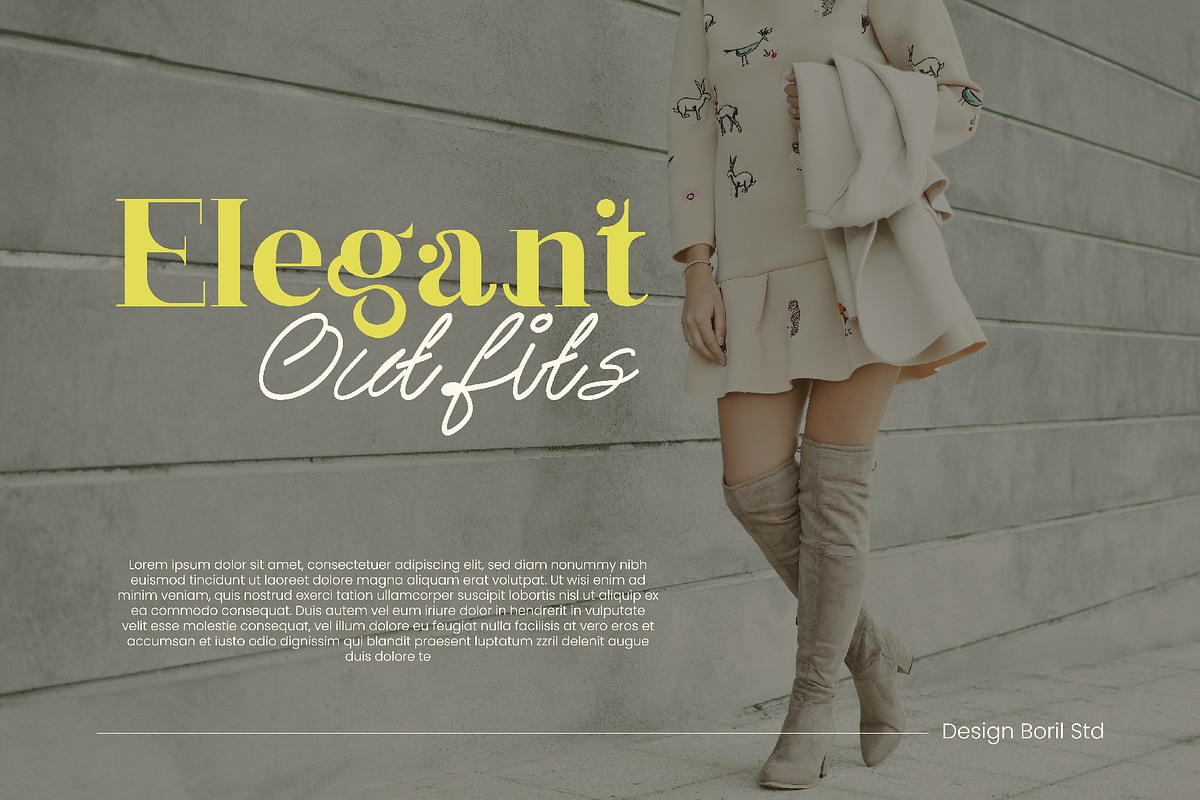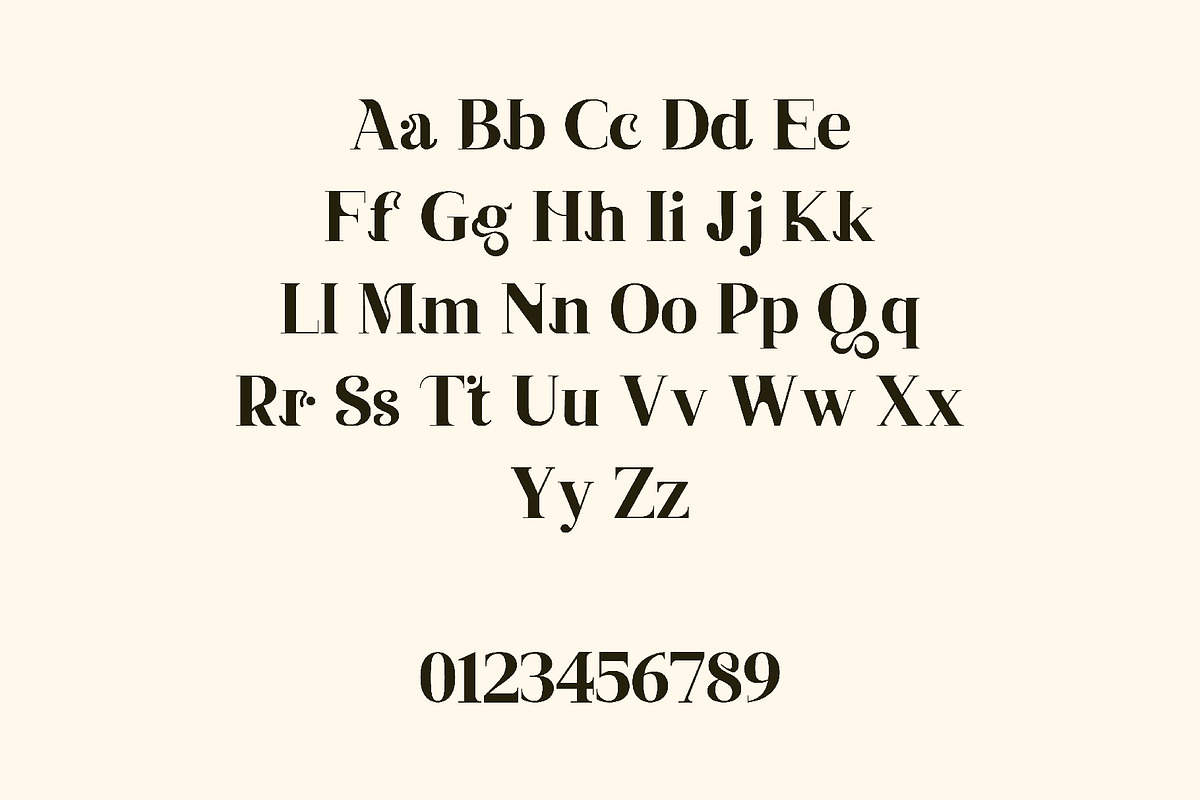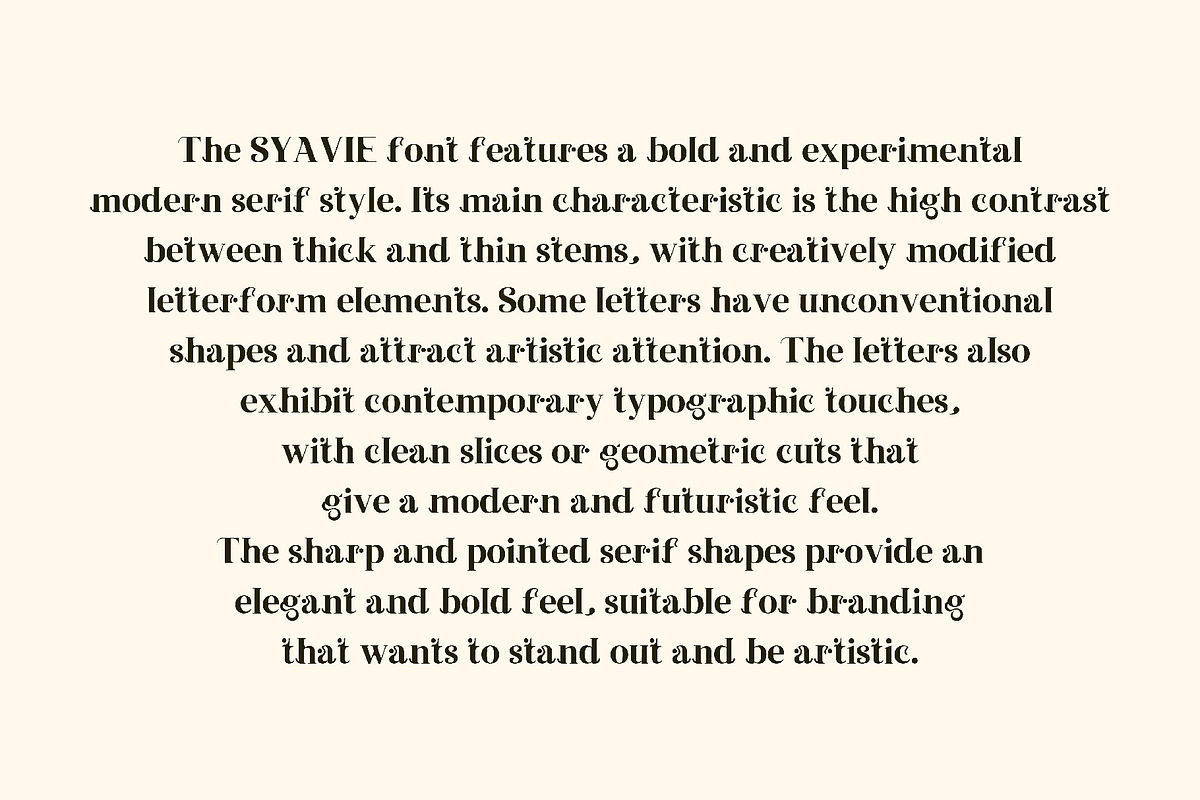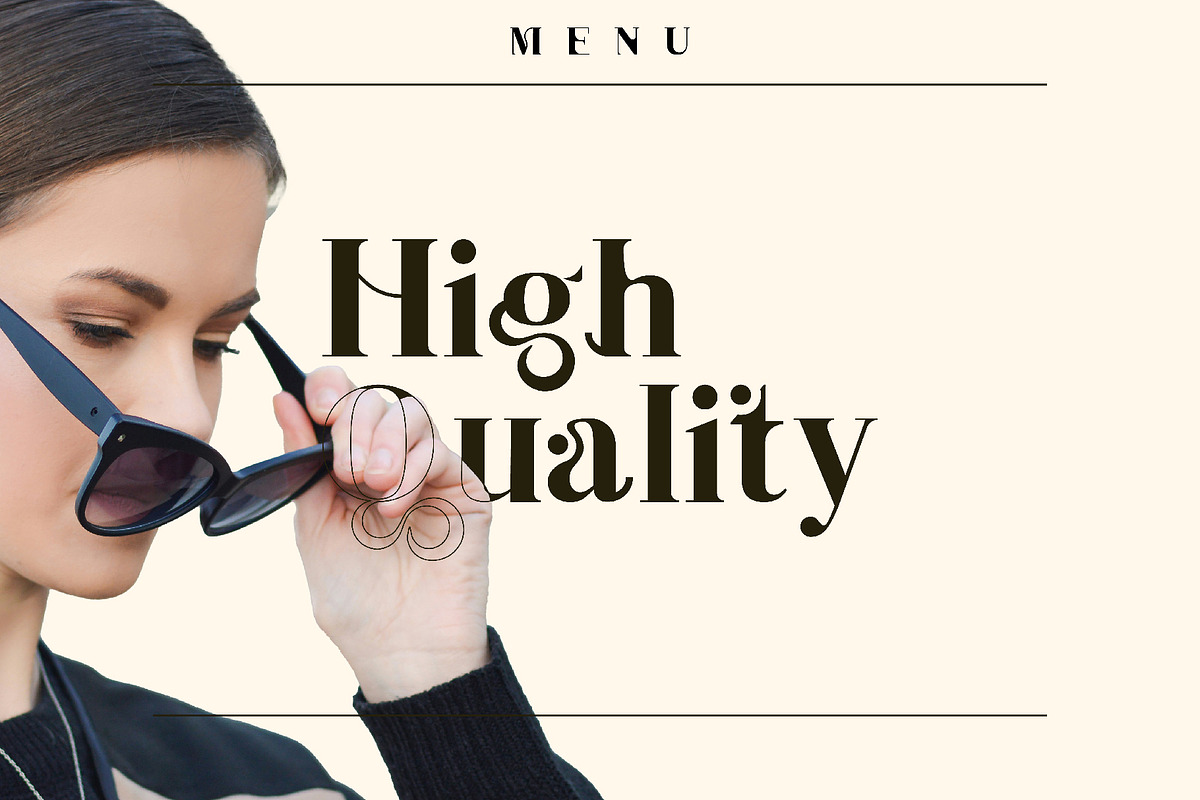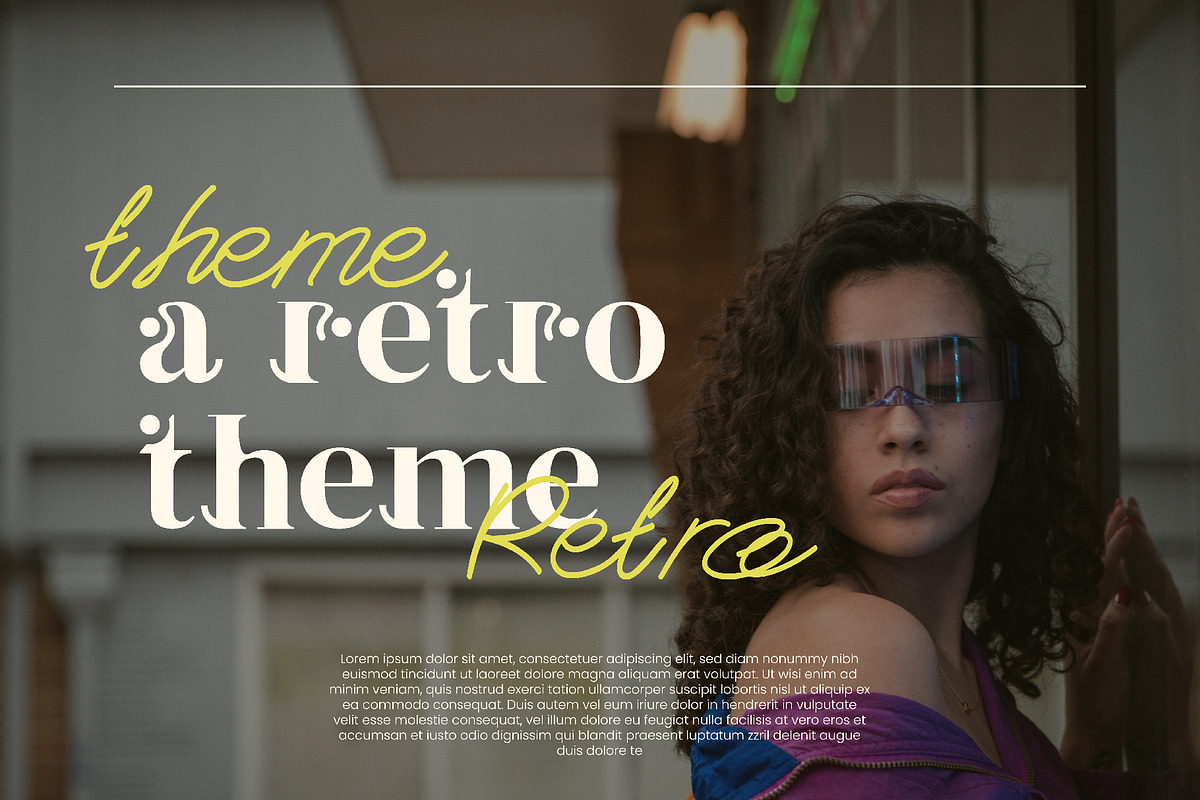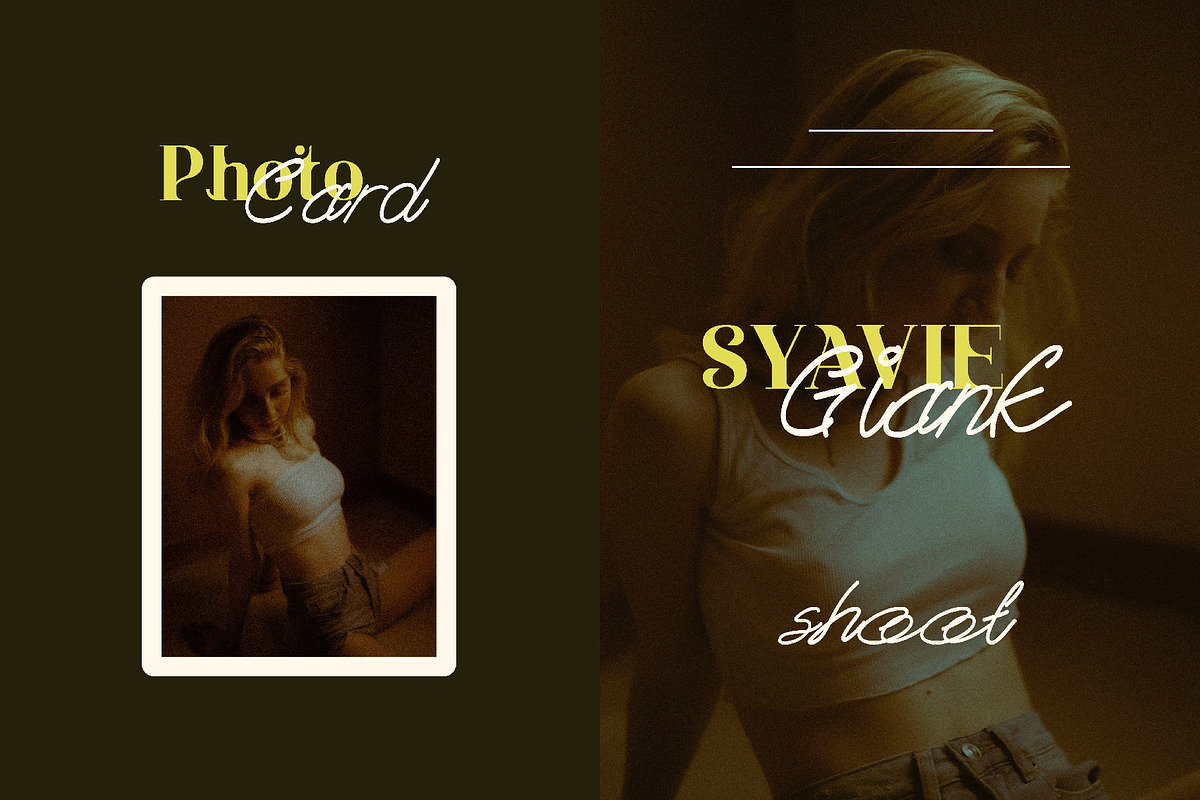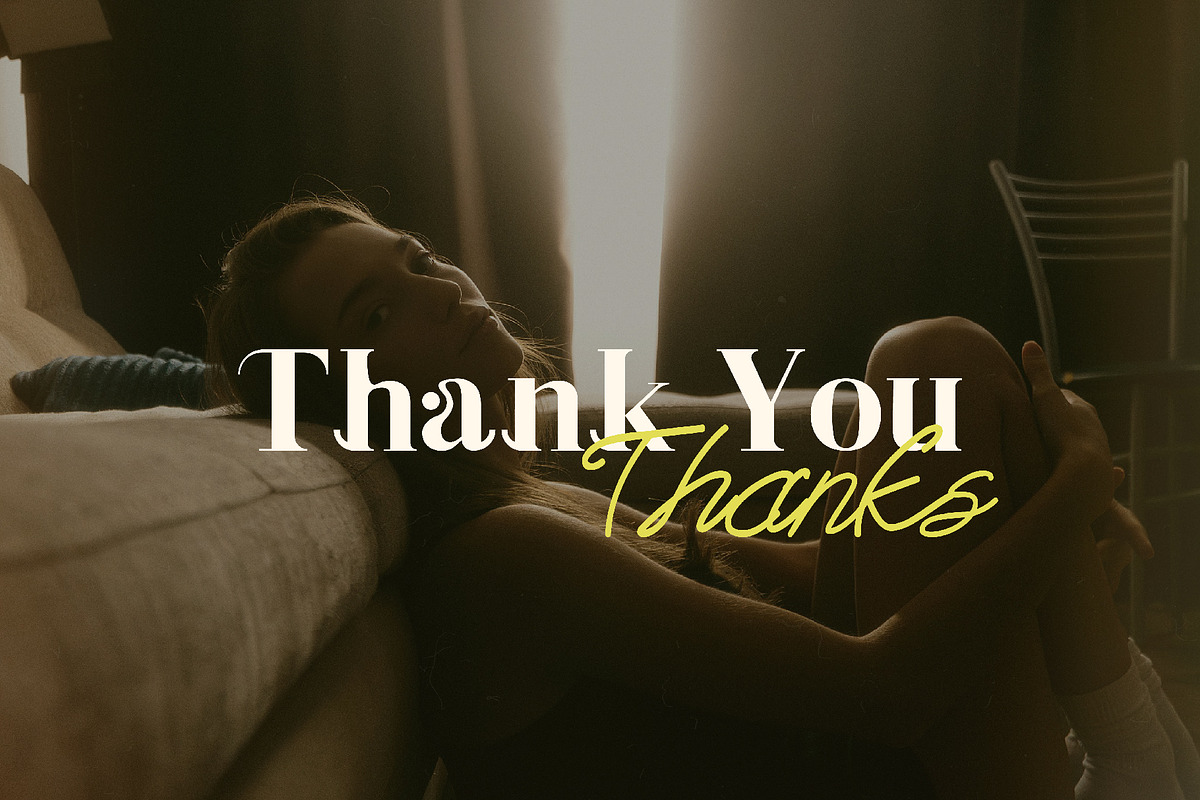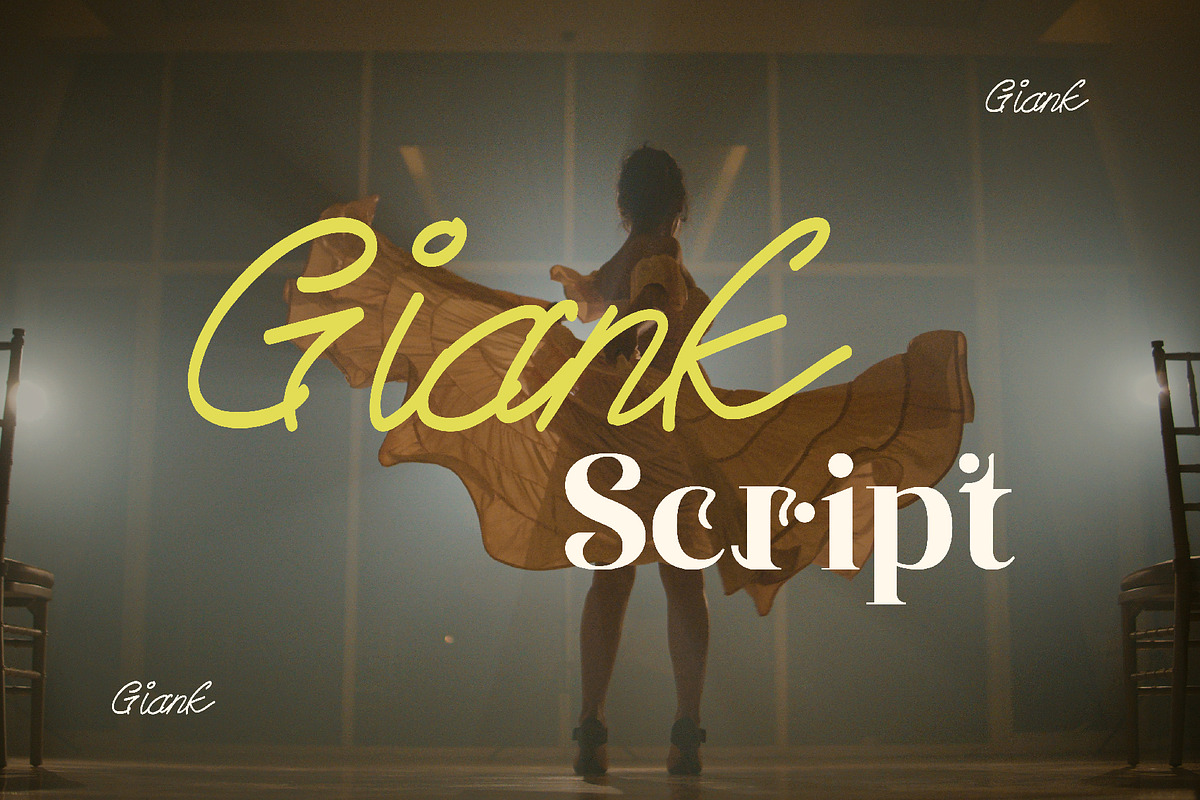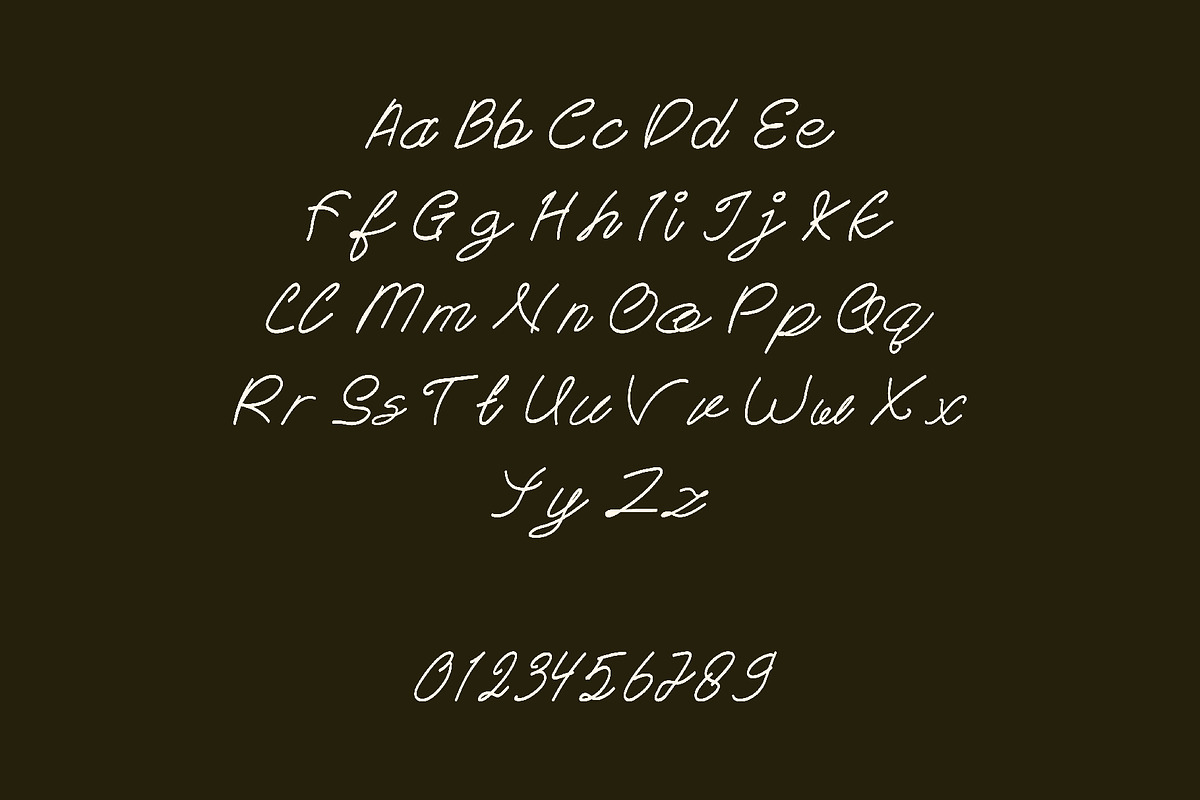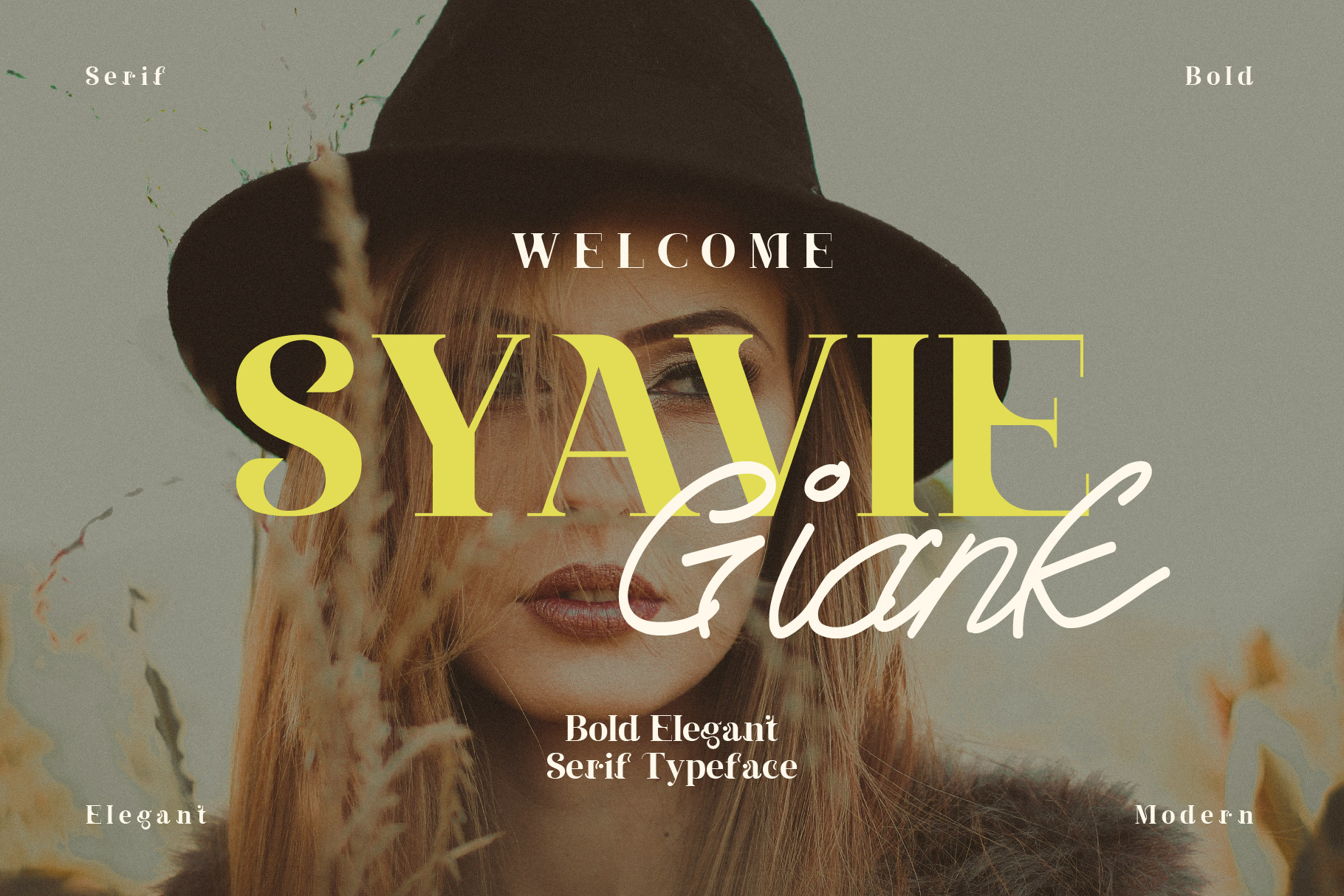
Syavie Giank - Font Duo
The SYAVIE font features a bold and experimental modern serif style. Its main characteristic is the high contrast between thick and thin stems, with creatively modified letterform elements. Some letters have unconventional shapes and attract artistic attention. The letters also exhibit contemporary typographic touches, with clean slices or geometric cuts that give a modern and futuristic feel. The sharp and pointed serif shapes provide an elegant and bold feel, suitable for branding that wants to stand out and be artistic.